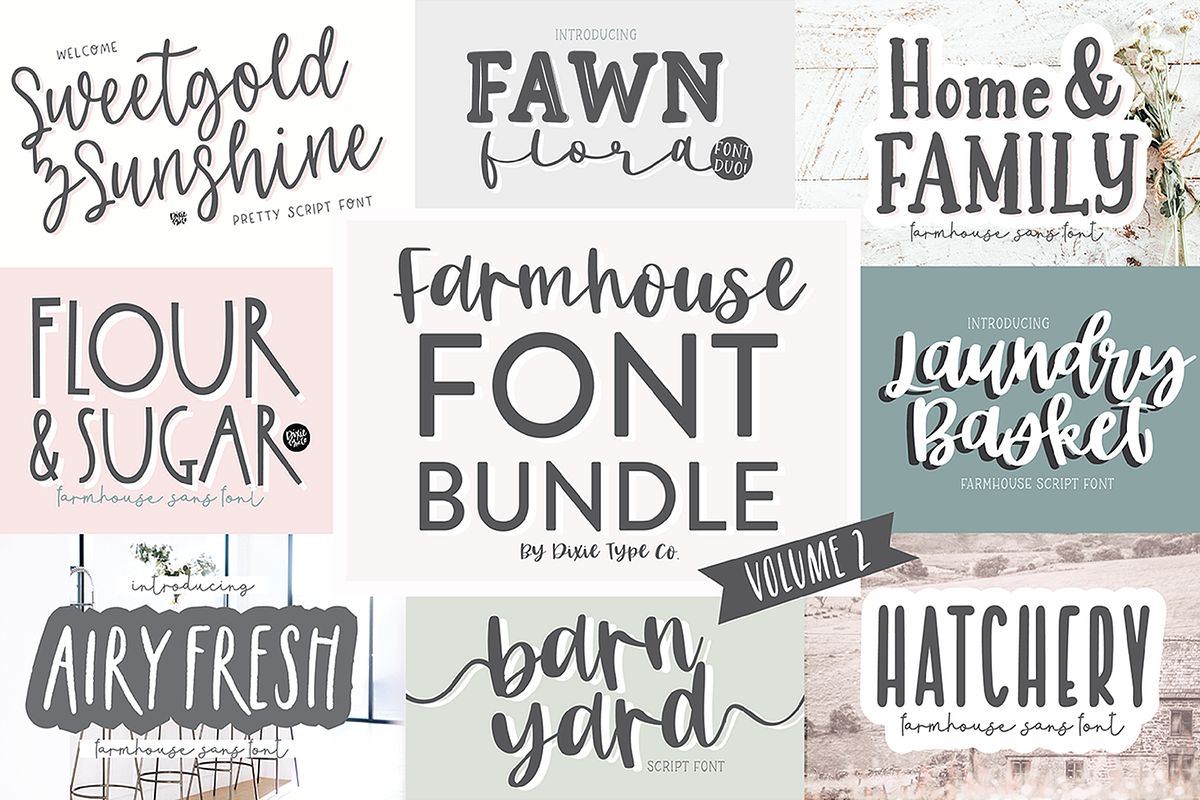
Please note that you must purchase this font bundle for commercial use. You can download Farmhouse Font Bundle Vol. 2 for free, strictly for personal testing purposes only. This charming collection features a curated mix of rustic, hand-lettered fonts designed to bring warmth, coziness, and country charm to your creative projects. Farmhouse Font Bundle Vol. 2 Free Download is perfect for DIY crafts, farmhouse signage, home décor quotes, wedding invitations, branding, and social media content with a down-to-earth feel.
Each font in this bundle carries a handmade aesthetic—ranging from flowing scripts to rustic serifs and playful prints—making it versatile for both print and digital use. The bundle includes uppercase and lowercase letters, numerals, punctuation, and multilingual support for global design flexibility.
Whether you're crafting cozy SVGs, personalized gifts, or heartfelt designs, Farmhouse Font Bundle Vol. 2 brings simplicity and warmth to your typography.